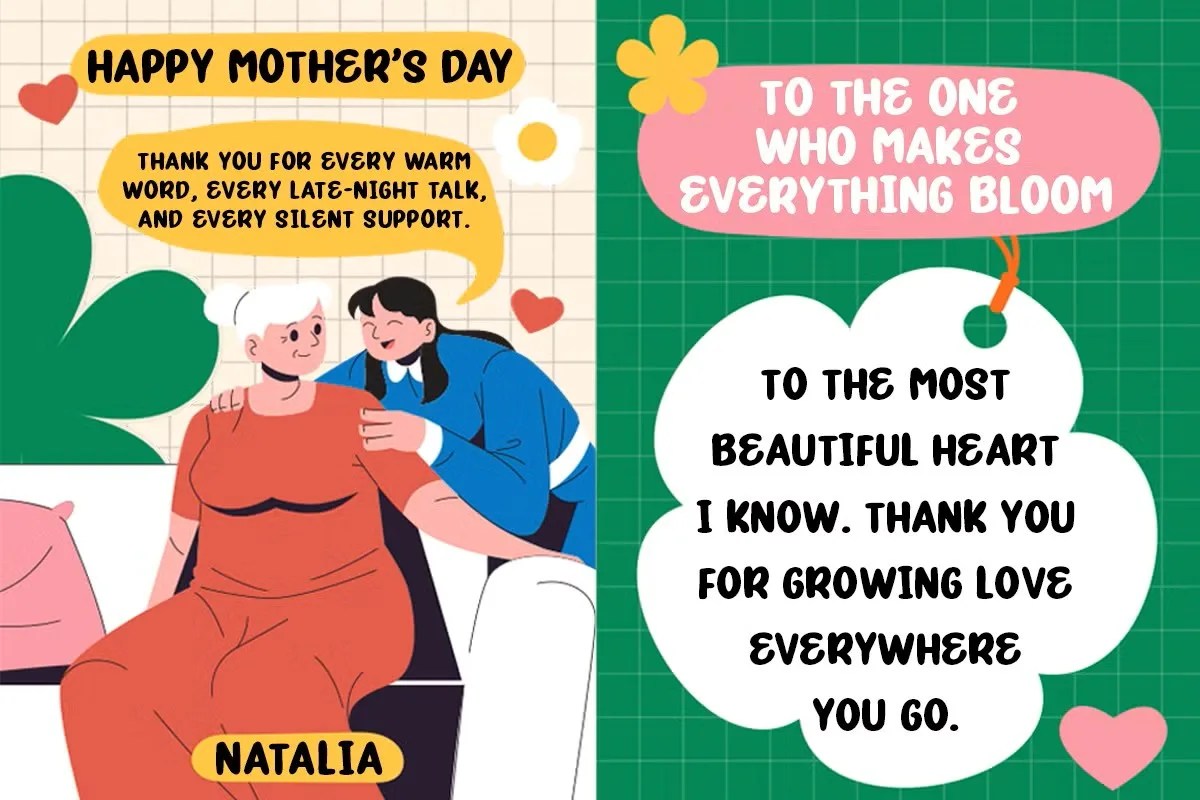
Jump Zingera by Roomspace. This is an incredibly lively and fun display font that practically bounces off the page with excitement. This typeface captures a spirit of pure joy and playful movement in every character. Jump Zingera is the perfect choice for projects that need to feel dynamic, happy, and full of life. It immediately sets a cheerful and optimistic tone.
This font is a fantastic tool for any project with a cheerful theme. Specifically, it is a wonderful choice for children’s party invitations or birthday cards. It sets a happy mood right away. Furthermore, this fun display font is perfect for creating eye-catching social media content. Use it for festive announcements or vibrant promotional graphics for an event. Its playful nature guarantees your design will stand out from the crowd and bring a smile to your audience.
• Energetic and fun display style
• Features a playful, bouncy baseline
• Ideal for kids’ projects, events, and social media
• Adds a joyful and dynamic feel